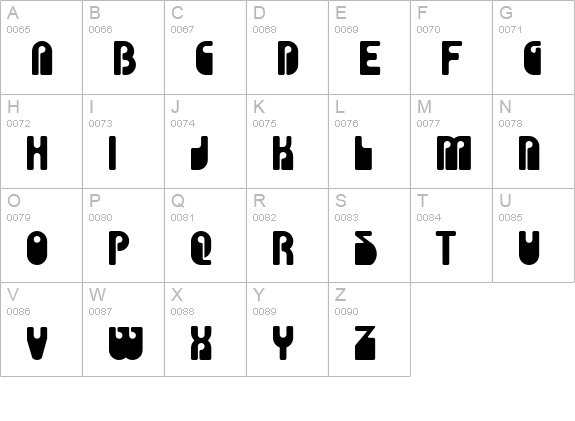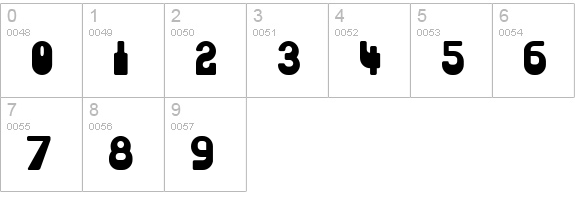
Choda Font Details
Choda font is a modern and stylish typeface that exudes sophistication and elegance. Its sleek lines and unique design make it perfect for a wide range of design projects, from branding to editorial layouts. The versatility of Choda font allows it to be used in both headlines and body text, ensuring your message is conveyed with clarity and style. What makes Choda font even more appealing is that it is available for free download at FontsMarket.com. This means that you can easily access this high-quality font without any cost, making it a valuable addition to your font library. Whether you are a designer, a student, or a business owner looking to elevate your brand, Choda font is the perfect choice for creating impactful and visually stunning designs.